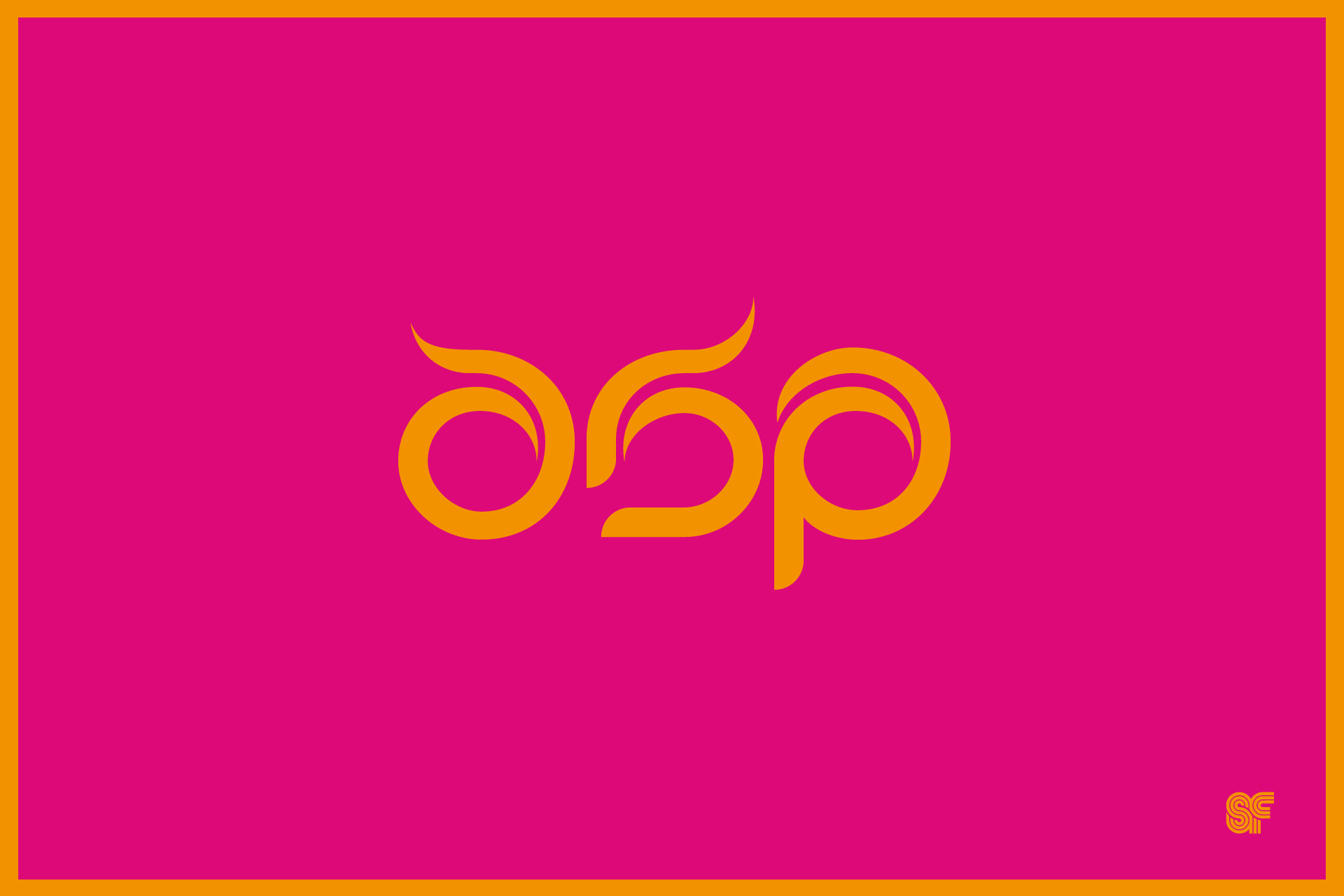
Asp | Display Typeface
Asp by Superfried, as the name suggests, is an ornate, meandering, snake-like display typeface. Its distinct, bold style has been designed to evoke the curves and beautiful intricacy of historic art and patterns observed over the years whilst travelling abroad.
Asp strikes a perfect balance between delicacy and confidence, making it an ideal choice for branding, editorial design, and web applications. With its captivating style, Asp is sure to make a statement in any project, offering versatility across various design contexts.